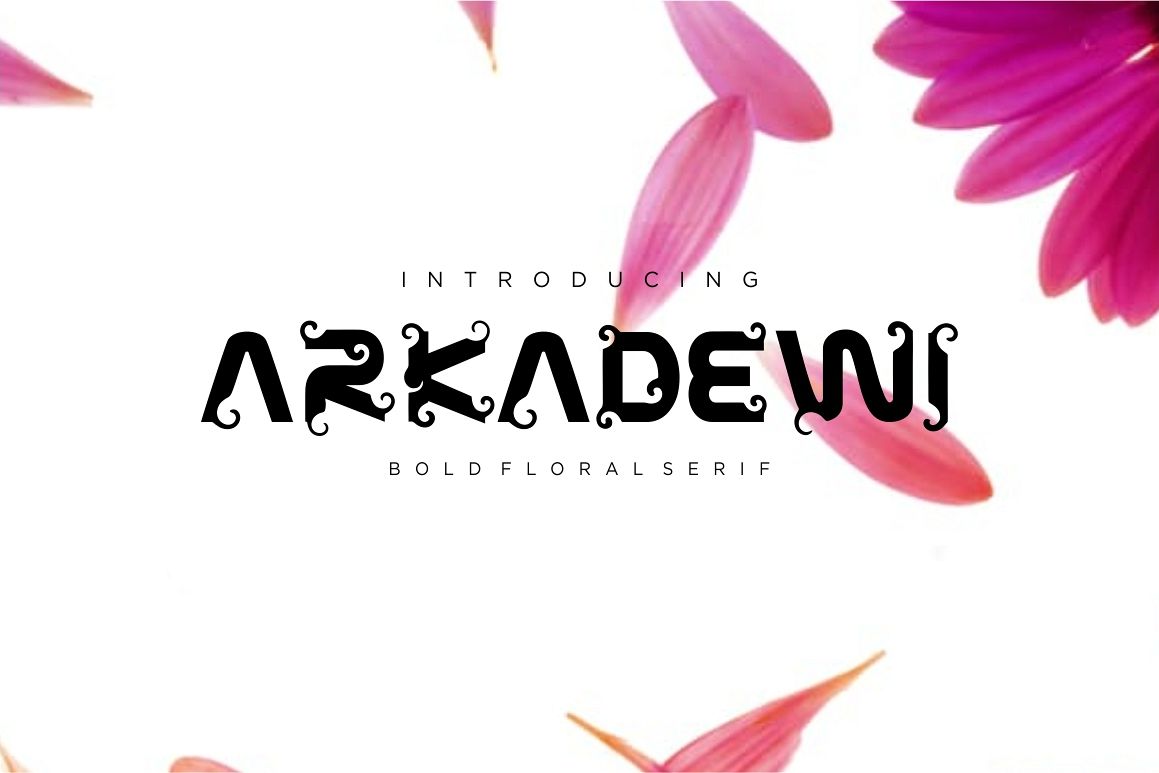
ARKADEWI Typeface
ARKADEWI TypefaceArkadewi typeface is bold floral serif font. Inspired by the glamour and elegance of angels. Perfect for feminine logo, artistic design, poster design , headline.Files Included
ARKADEWI Typeface